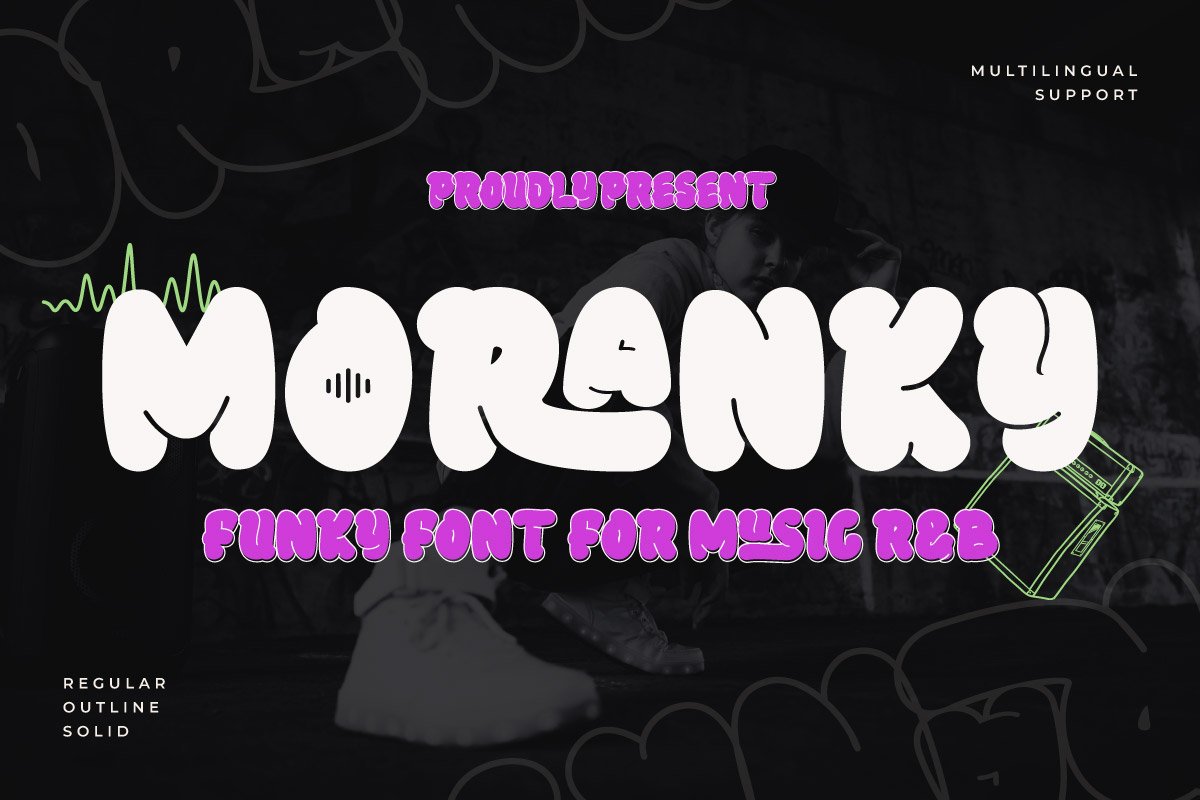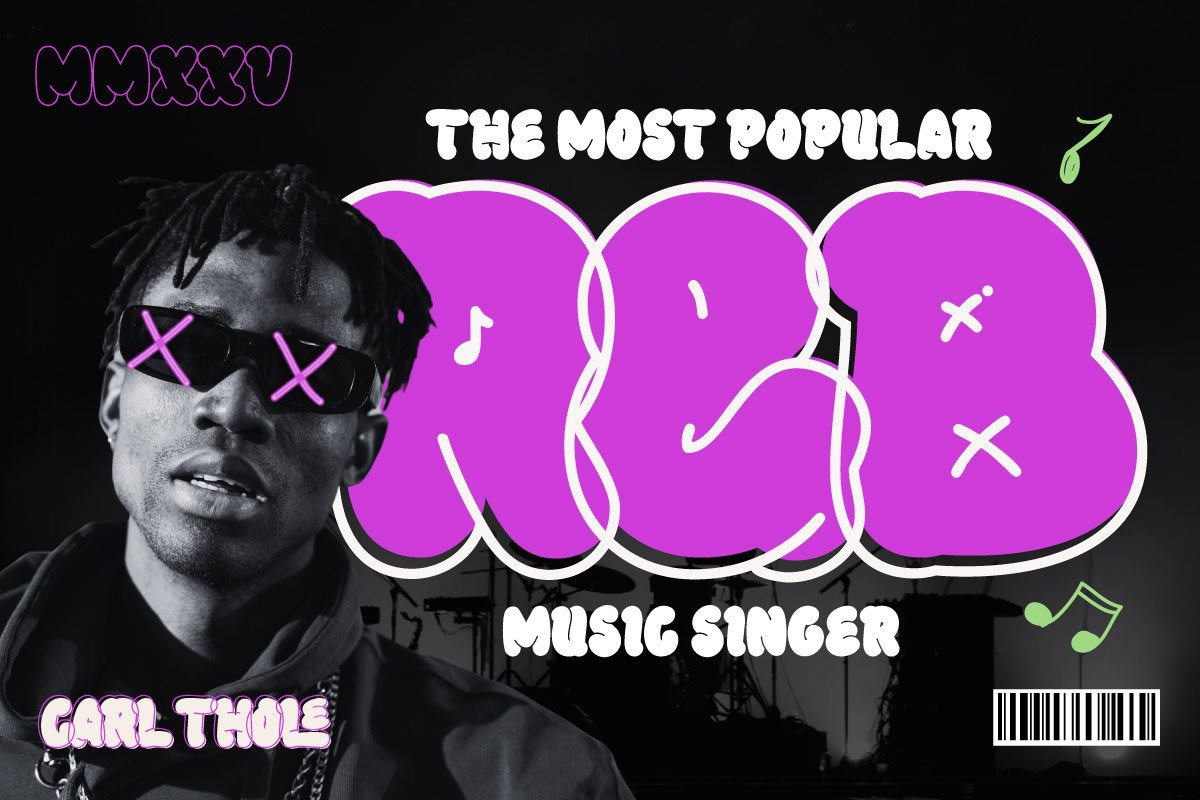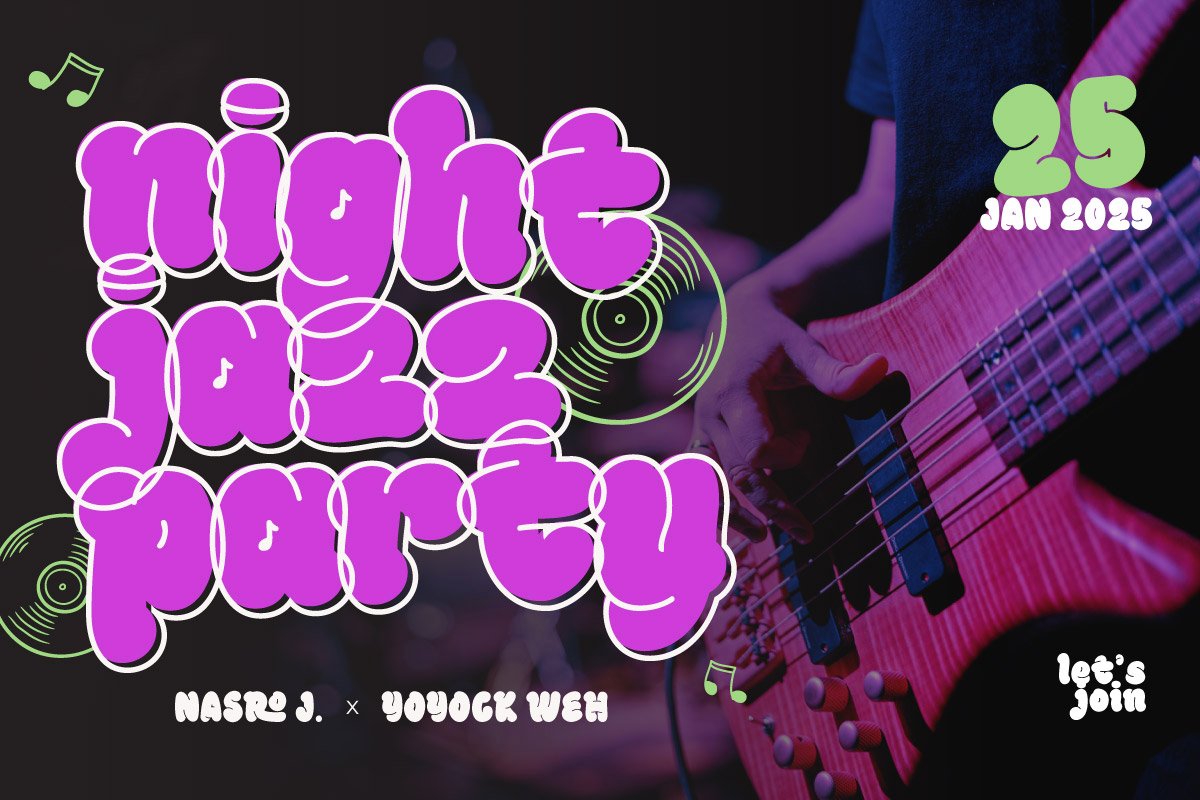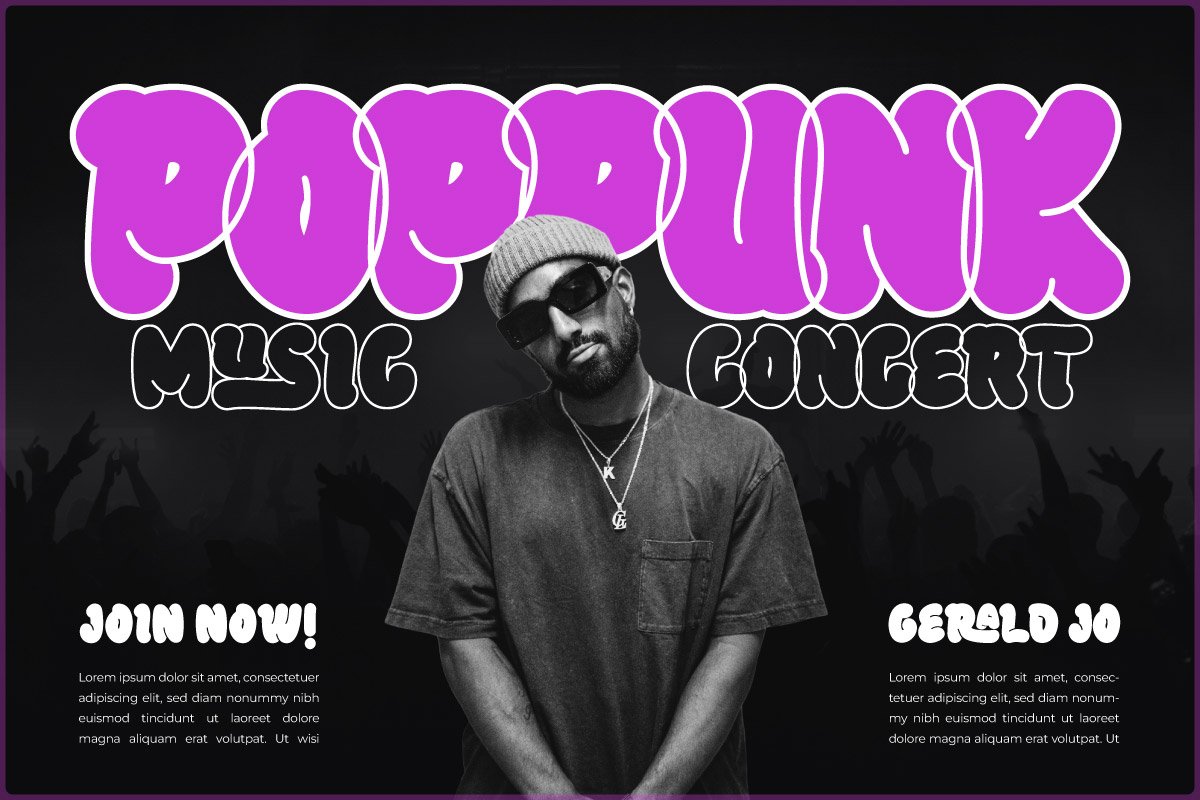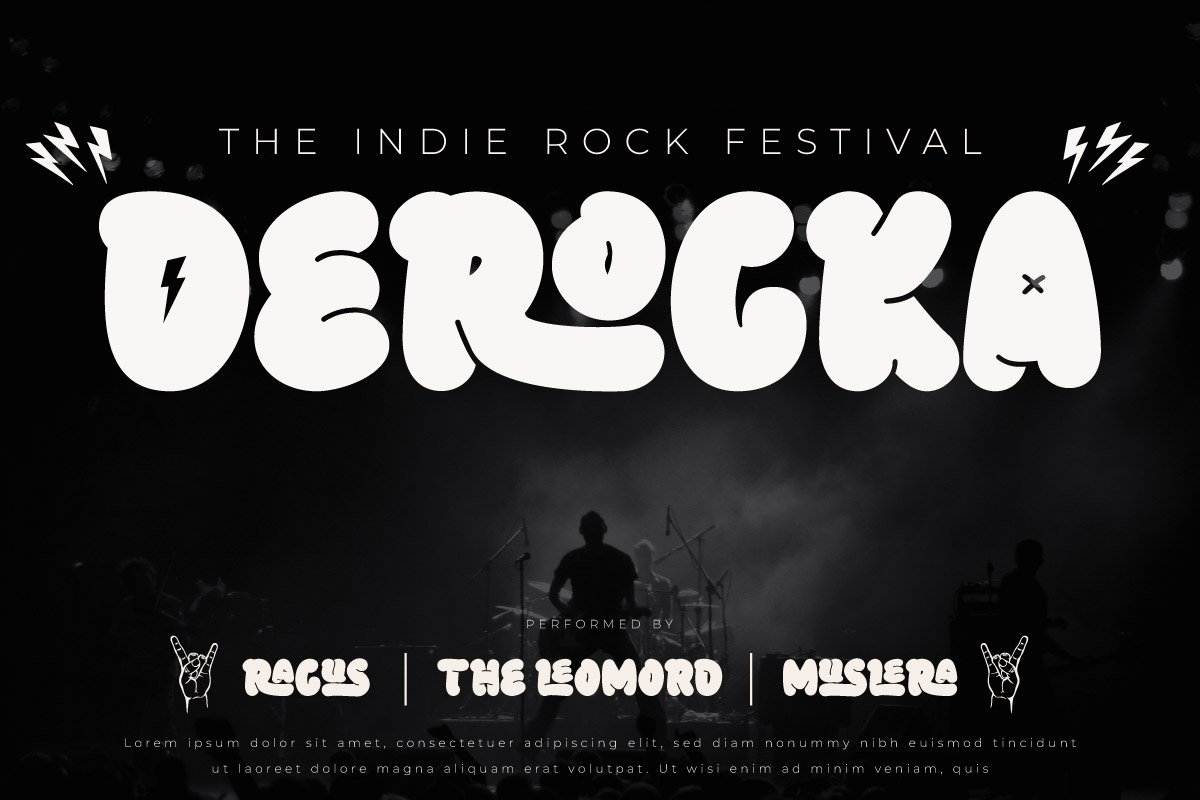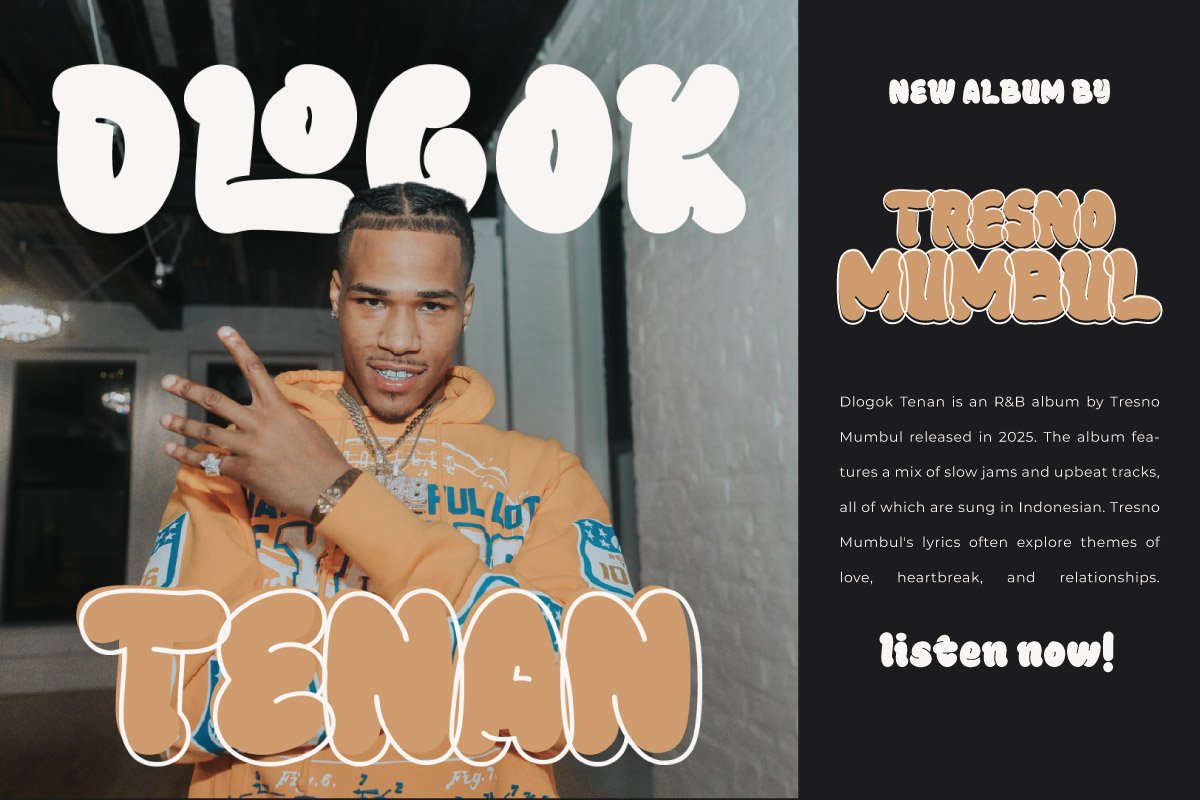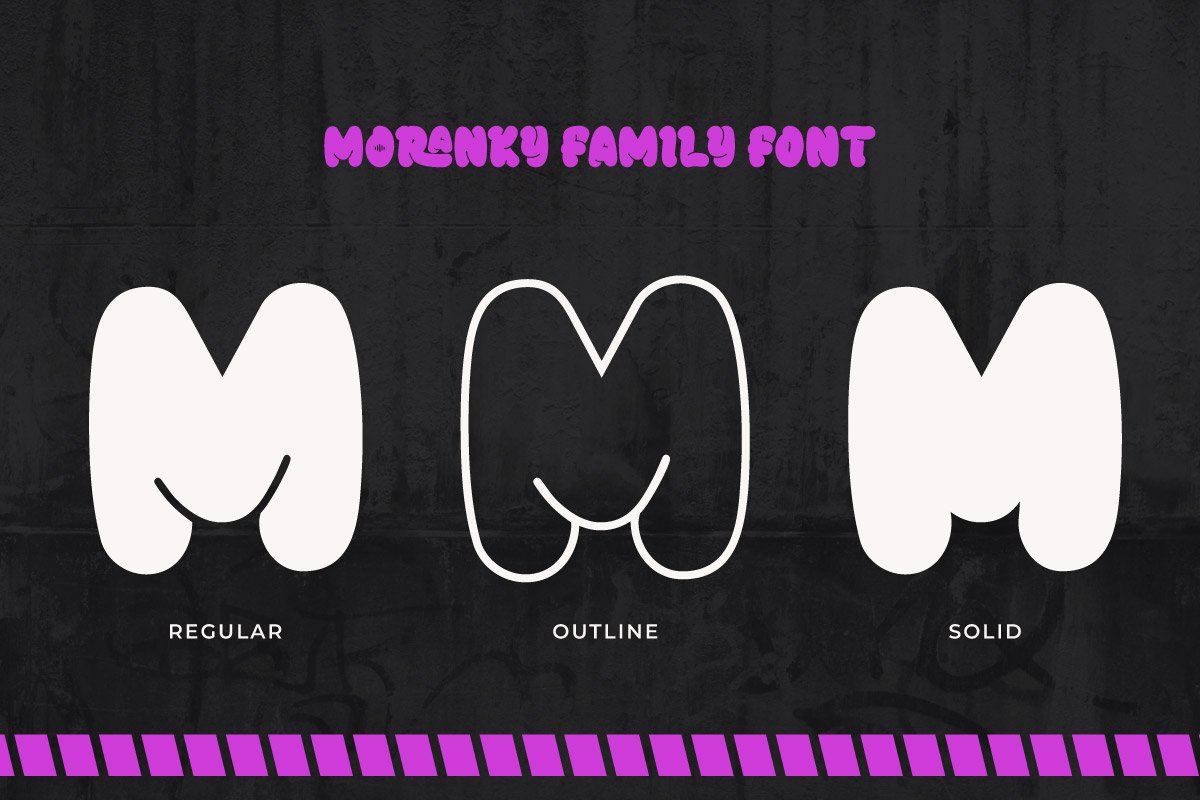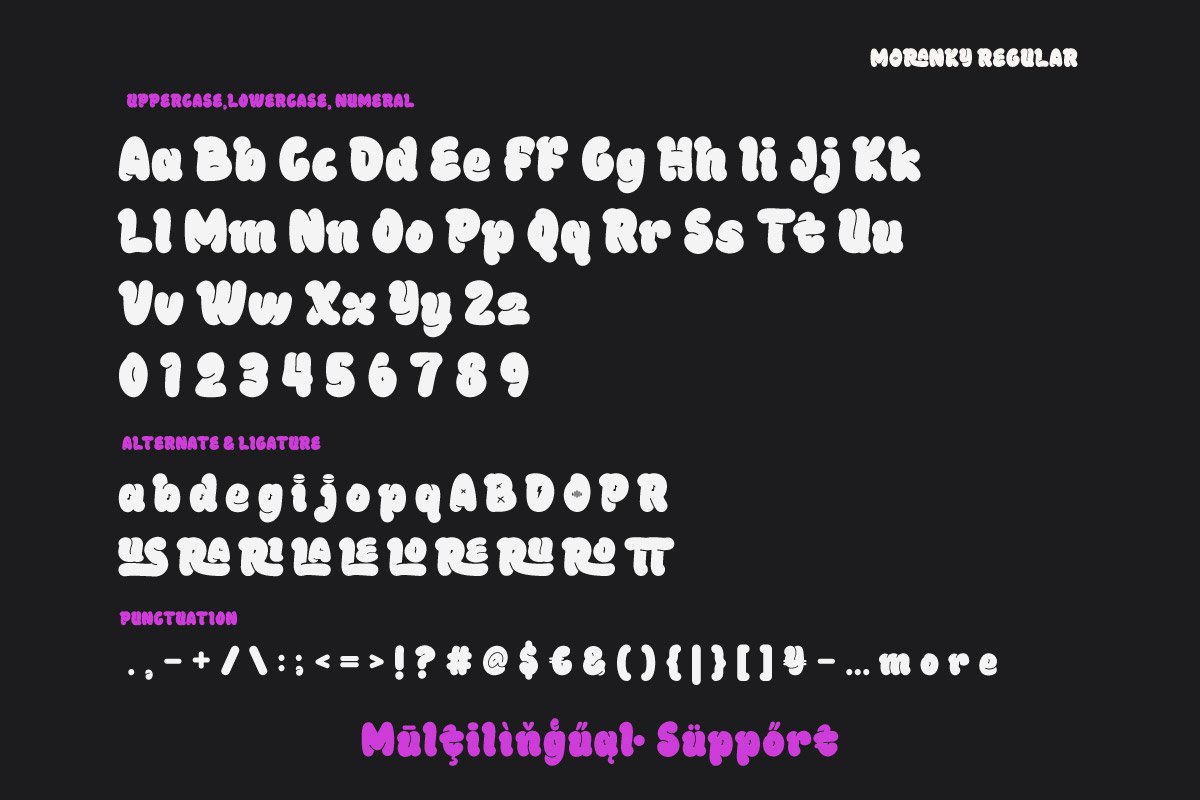
5. Moranky – Funky Decorative Font for Soulful R&B Vibes
Moranky – Funky Decorative Font for Soulful R&B Vibes
Bring the rhythm to life with Moranky, a funky and decorative display font designed for R&B, soul, and jazz themes. Perfect for album covers, concert promotions, and carnival designs, Moranky captures the essence of music with its unique and playful letterforms. Its creative flair and emotional depth make it an ideal choice for designers seeking to create visually stunning and dynamic projects. Whether you’re crafting promotional posters or artistic branding, Moranky delivers a soulful and engaging visual experience.